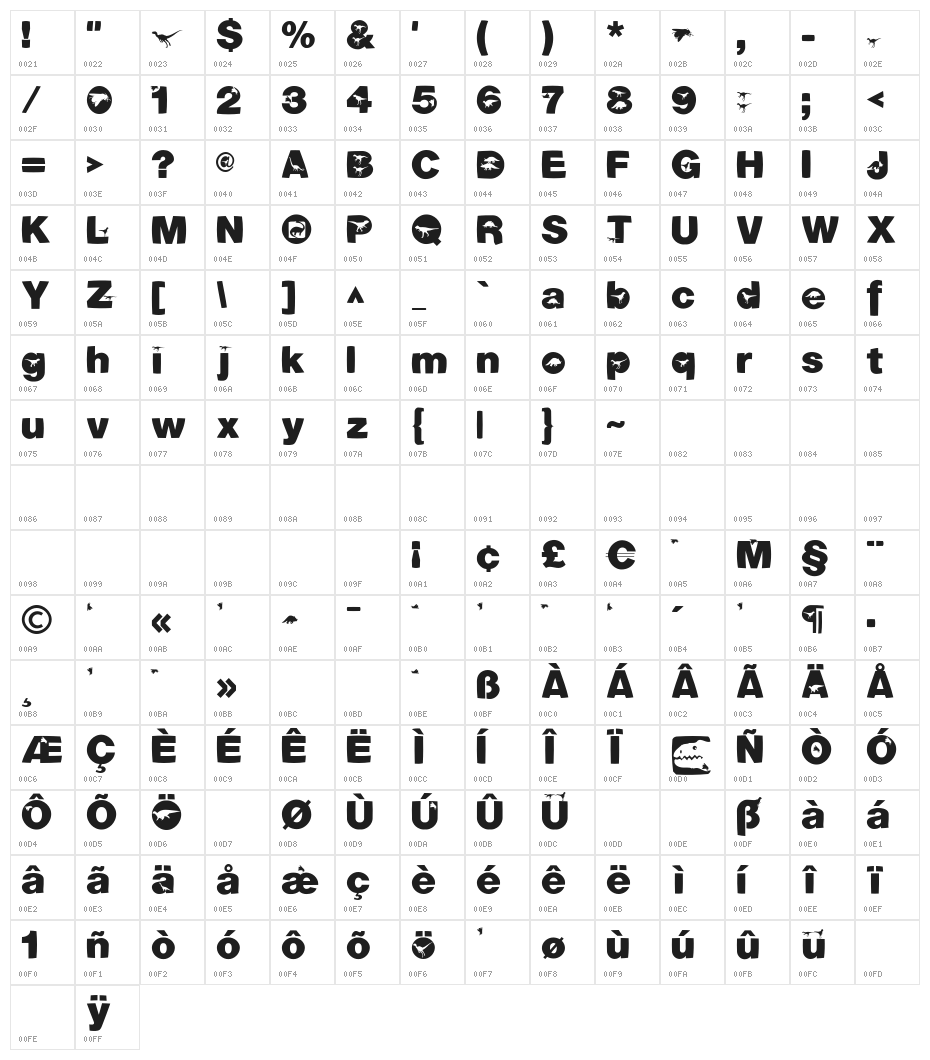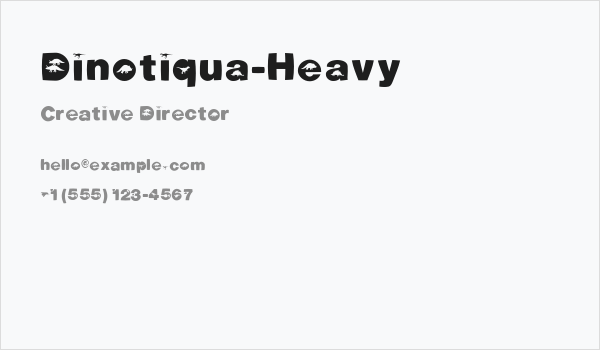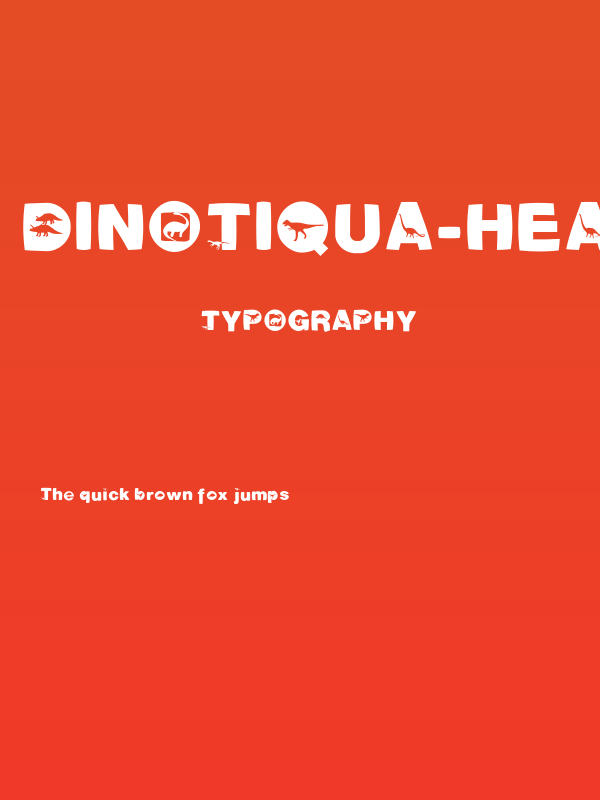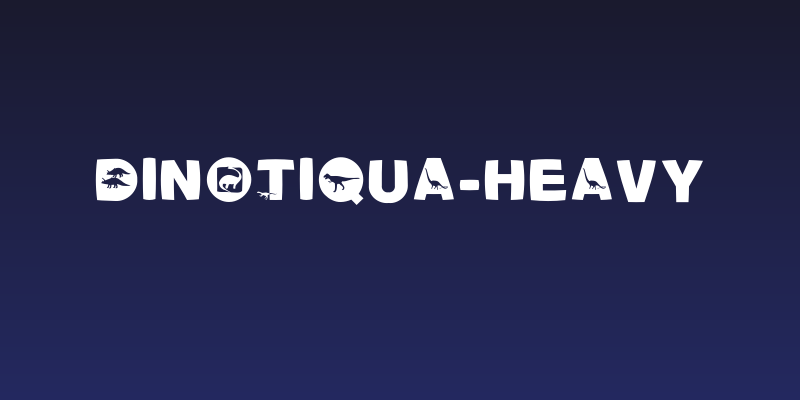
Dinotiqua-Heavy Font
Dinotiqua-Heavy Description
This playful and bold font features a unique integration of dinosaur silhouettes within each character, creating a visually engaging and thematic design. The uppercase and lowercase letters maintain a consistent weight and style, with each letter incorporating a different dinosaur shape, adding a whimsical touch. The numbers and special characters also follow this creative theme, making the font ideal for projects that require a fun and distinctive look. The overall design is bold and eye-catching, with a strong presence that stands out in any context.
| Overall Style | Playful, Thematic |
| Proposed Projects | Ideal for children's books, educational materials, themed party invitations, and playful branding projects. |